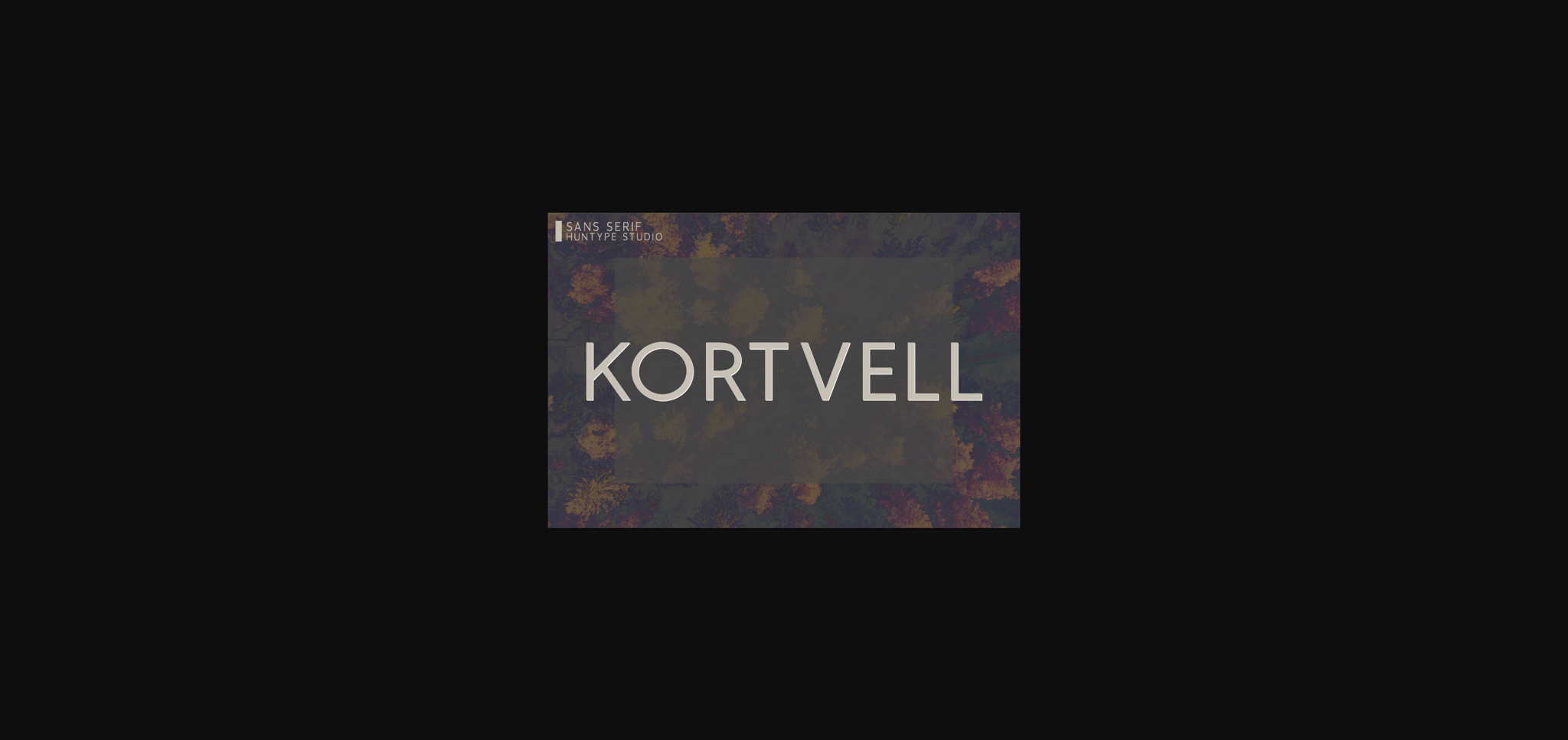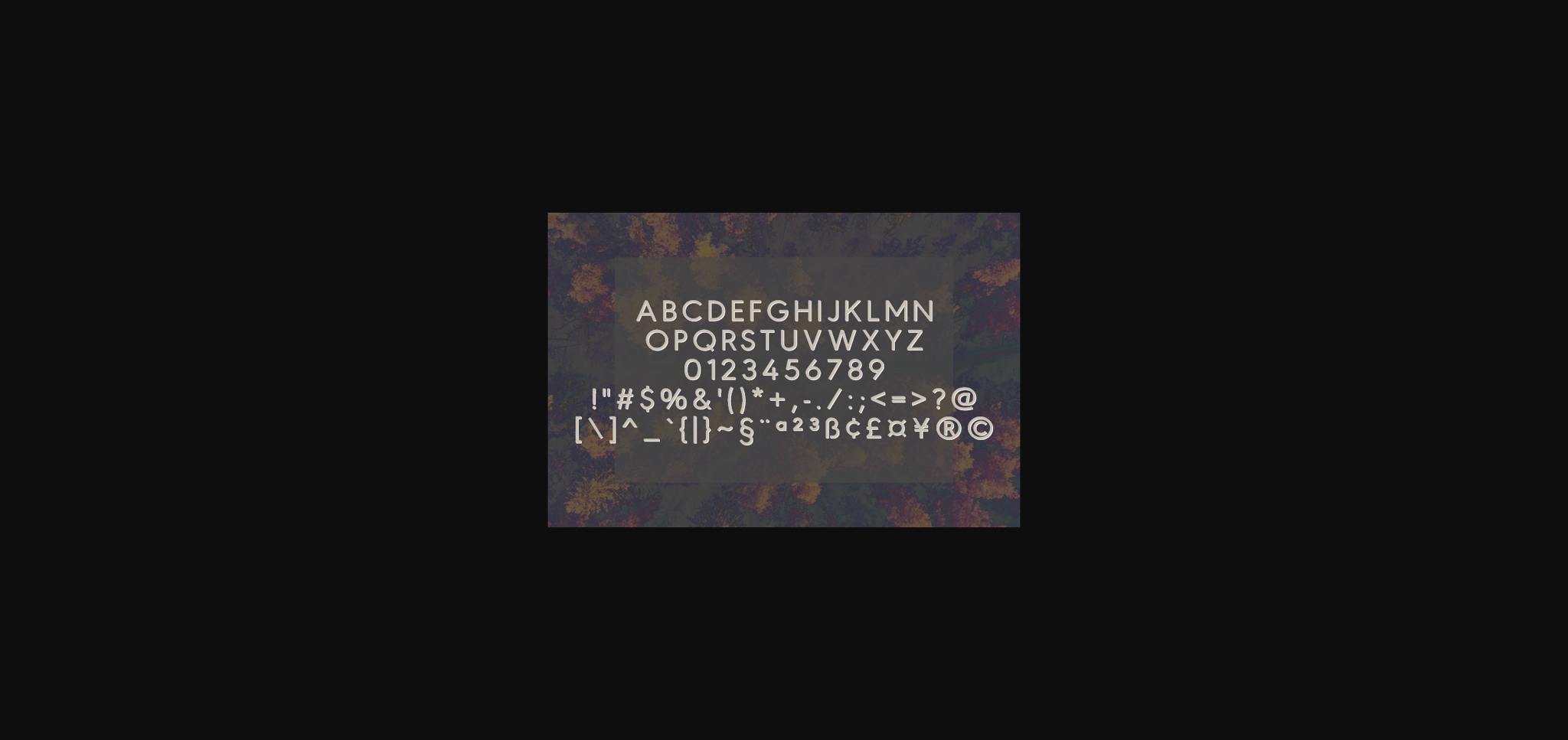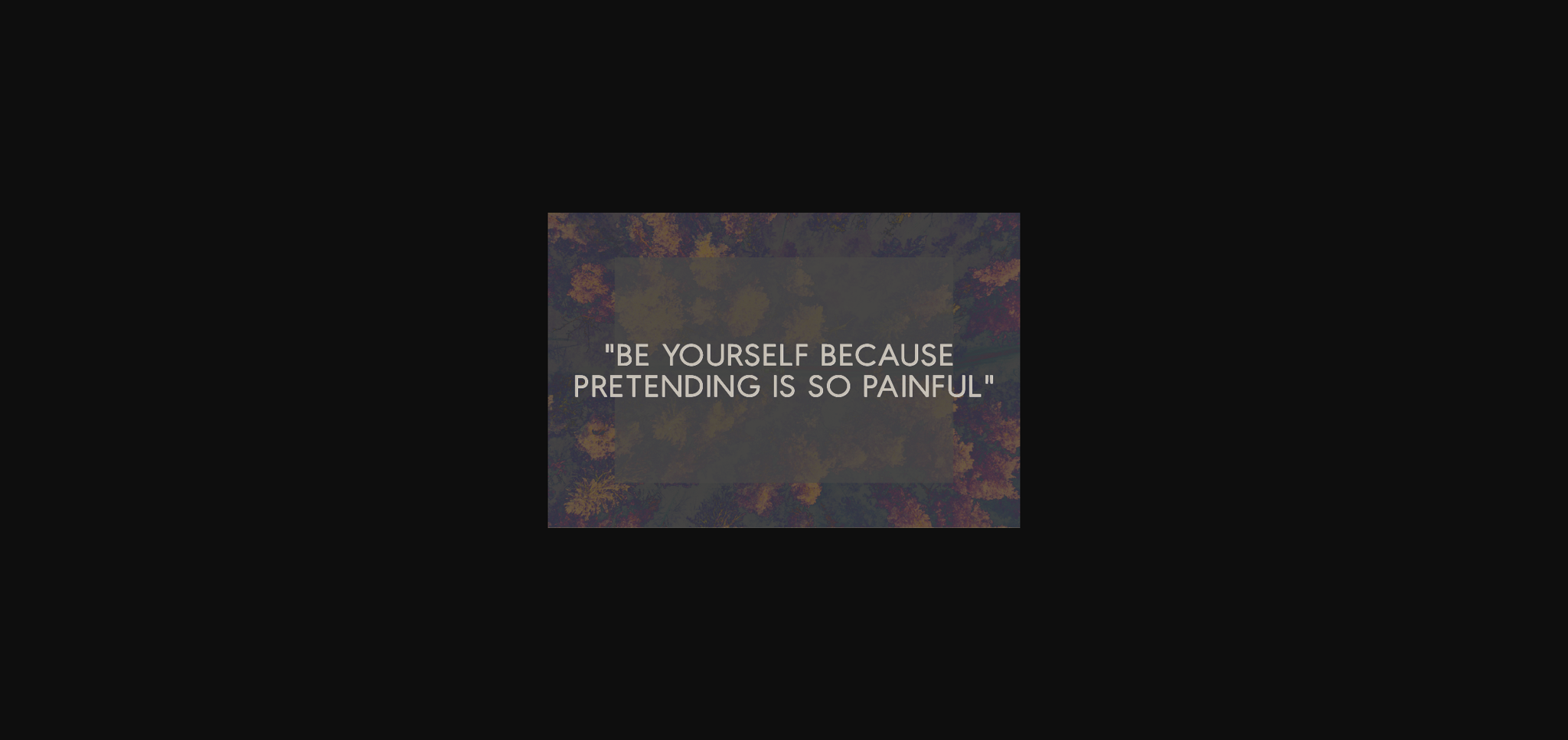
About Kortvell Font
Kortvell is a simple and natural sans serif font. Whether you’re using it for crafting, digital designing, presentations or greeting cards making, it’s perfect!